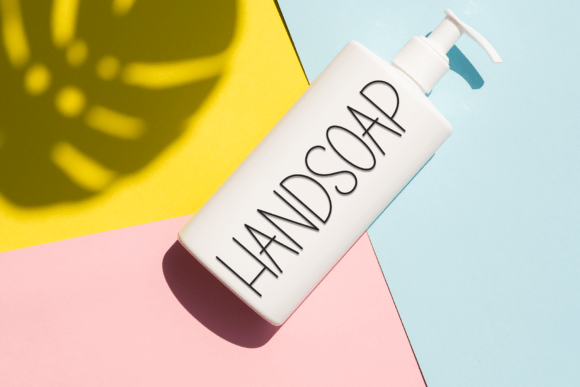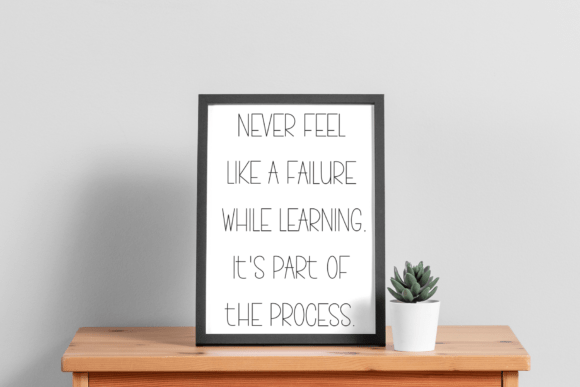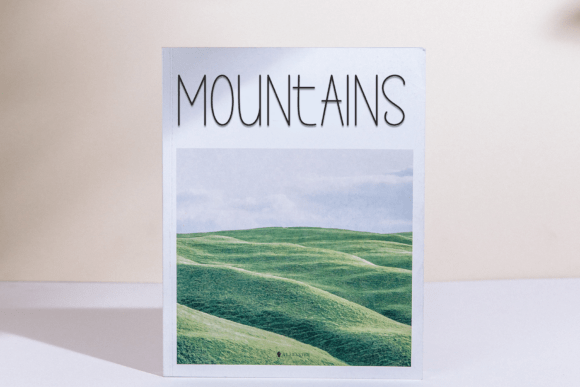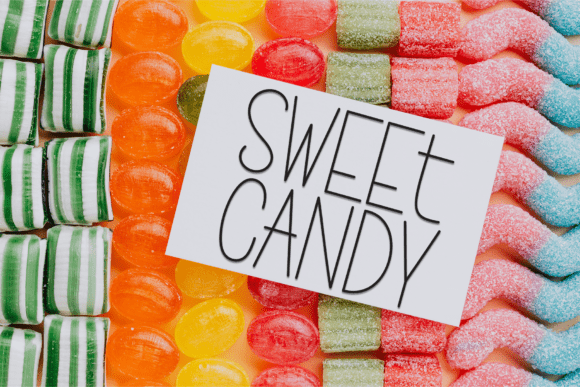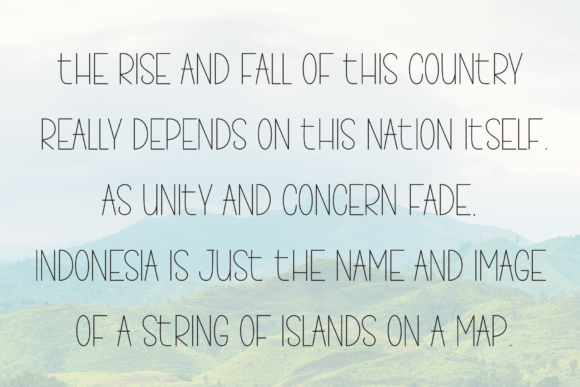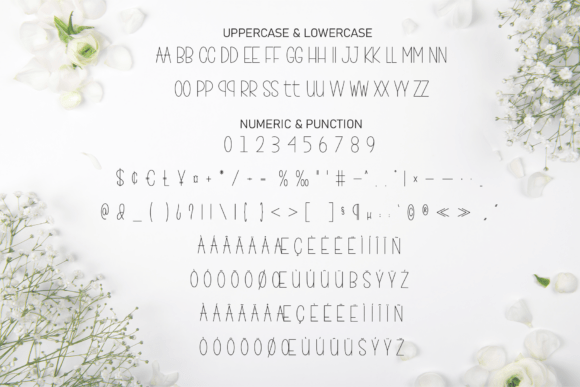
The Perfect Bloom: Discovering the Charm of Flowers Font
I’ll never forget the time I was working on a project for a local florist’s social media campaign. I had all the beautiful images and graphics ready, but I just couldn’t find the right font to tie everything together. The design felt off, and I knew I needed something fresh and friendly to match the brand’s vibe. That’s when I stumbled upon Flowers Font, and it was love at first sight! ✨
An Honest Review of Flowers Font
So, what makes Flowers Font so special? Let’s dive into the good stuff and a few quirks I’ve discovered.
- ✨ Clean lines and relaxed structure that scream freshness and approachability
- ✅ Perfect for packaging, posters, and social media graphics
- ✅ Adds charm and clarity to projects while maintaining a polished appearance
- ✅ Easy to read and understand, even at smaller font sizes
- ⚠️ Limited availability of stylistic alternates, which might limit creative experimentation
- 🤔 Not ideal for body text or lengthy content due to its display font nature
The Story Behind Flowers Font
While the true origins of Flowers Font remain a mystery, it’s easy to imagine a designer inspired by the beauty of nature and the world of florals. Perhaps they wanted to capture the essence of a sunny day, with all its freshness and vibrancy, and translate that into a font that’s both charming and clear. Whatever the inspiration, Flowers Font has undoubtedly bloomed into a favorite among designers and creatives.
Q: Is Flowers Font suitable for body text?
A: While Flowers Font is beautiful, it’s primarily designed as a display font. It might not be the best choice for lengthy body text due to its clean and relaxed structure, which may not hold up well at smaller font sizes.
Q: Does Flowers Font support OpenType features?
A: Yes, Flowers Font supports OpenType features, allowing you to experiment with different stylistic alternates and glyphs to add more personality to your text.